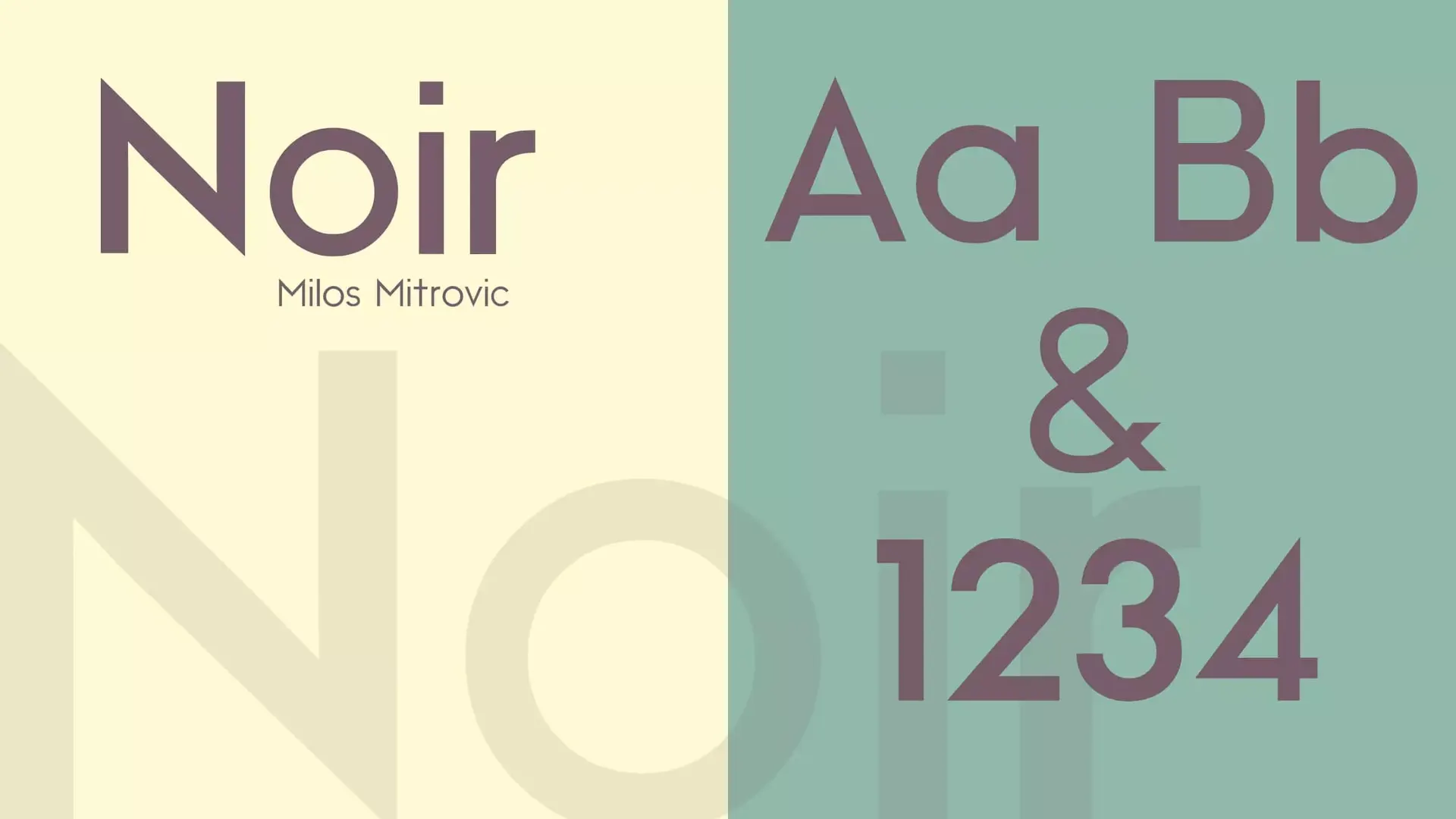
About Noir Font
Noir is an sans serif font family consisting of 12 fonts that have modern aesthetics heavily in the style of earlier 20th century geometric fonts. While it has a geometric design, it is a modern and organic style with a the warmth that is infused into every form. Noir comes with a wide array with Open Type features for highly professional use as well as extensive Latin, Cyrillic and Greek languages support. Noir is available as Std as well as Pro version. Cyrillic and Greek are available in the Pro packages only. Download the Free Noir font from this page.
Noir font family includes light and elegant weights that are perfect for small text, to masculine and heavy weights that are ideal for large sizes of display.
Noir was created by Milos Mitrovic, and released in the Mindburger Studio. Before we go any type of further, let’s check out the OpenType Features of Noir.
OpenType Features
- Krning
- Alternates
- Ligatures
- Additional
- Numbers
- Stylistic Sets
Usage Of Noir Font
Noir Font is an innovative and flexible typeface that can be used in a variety of ways. It’s great for any kind of work. This font is ideal to design on official platforms as well as unofficial ones. Noir font is ideal for designing elegant templetes with text. It looks stunning and is perfect for formal use. It is possible to use this font for the platforms listed below.
Font Combination
Philosopher + Noir
Noir is perfect for both heading and body text. We used the Noir font as body text in the image above and also the Philosopher font as the heading. We have used the image above only to give you an idea. Lets talk about the heading font.
Philosopher is a sans serif font designed by Jovanny Lemonad. It can be used in logos, headlines, and for text.
WHAT TYPE OF FONT IS Noir?
Noir is a geometric sans-serif typeface created by Milos Mitrovic.